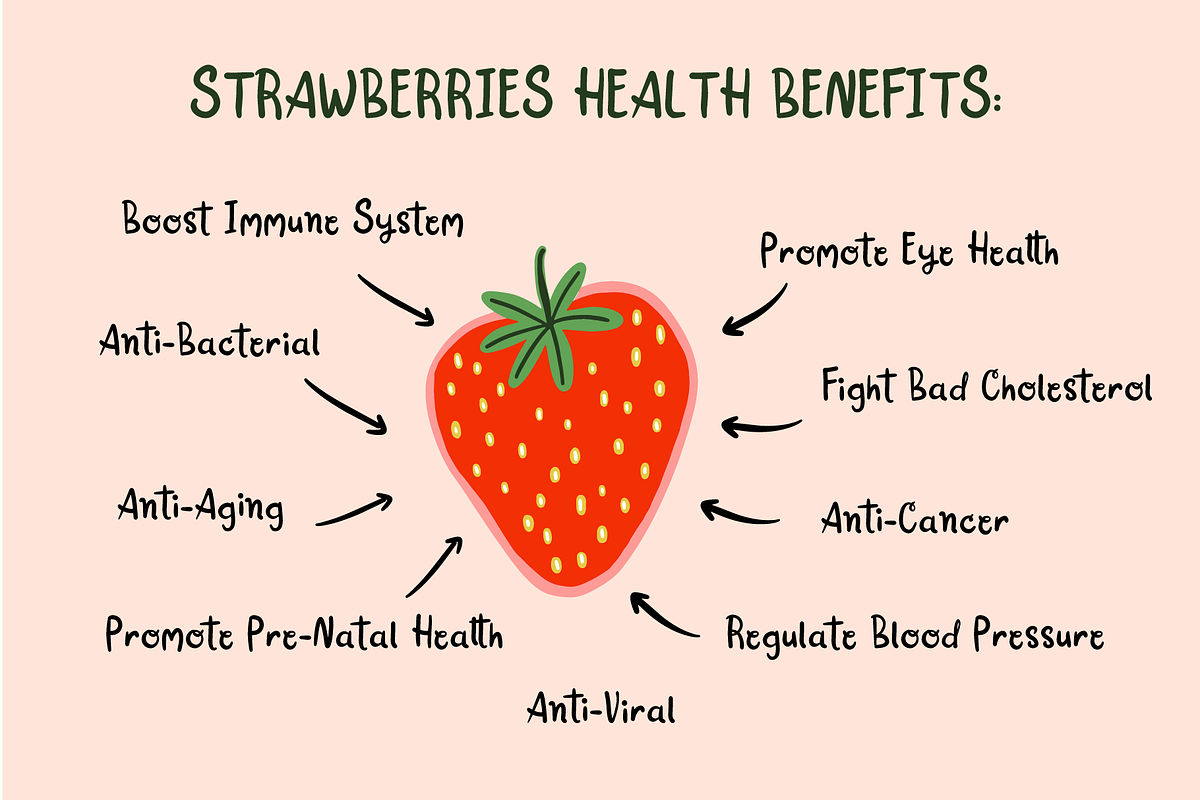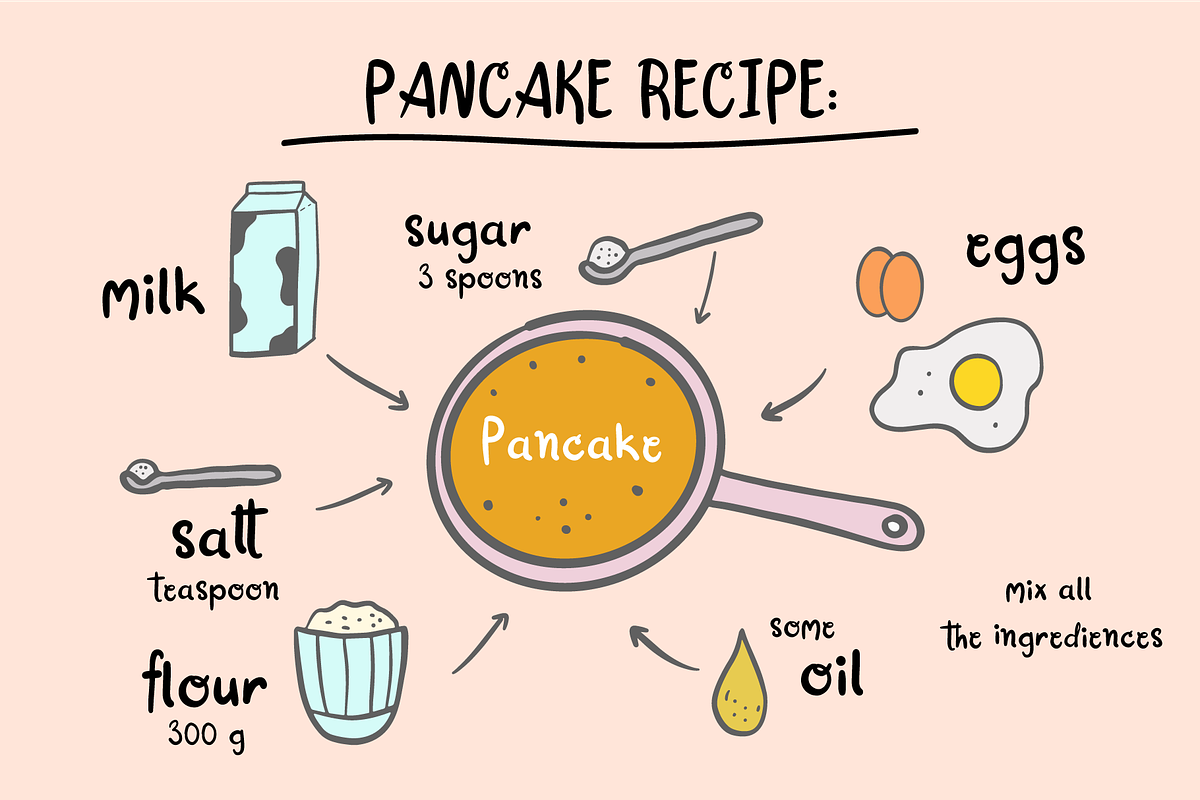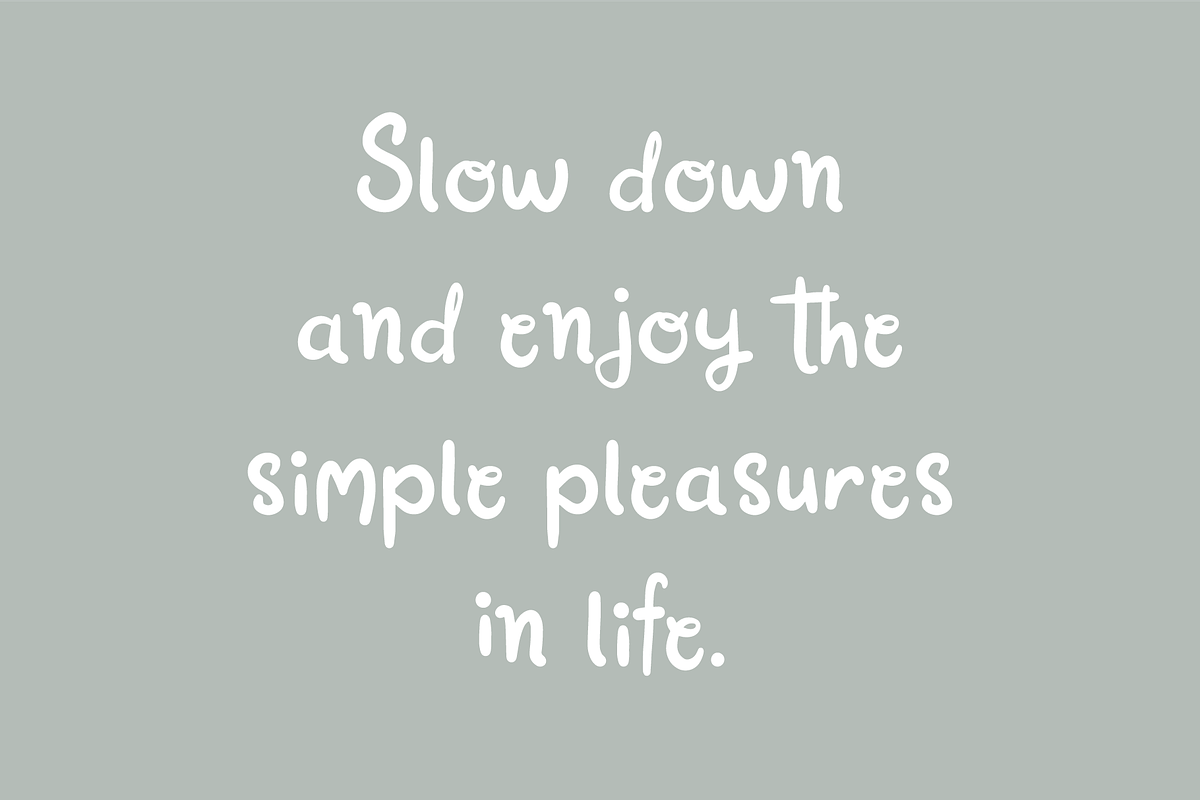
Absolute Art Handwritten Script Font
Hello guys, I am glad to present you my handwritten font Absolute Art Font with interesting artistic style. It can be perfect for your vlog, blogs, journals, trips, travel diaries, videos and many other experiences. Lowercase, uppercase letters, numbers and characters are available. This font is perfect for creating logos, headlines, blogs, websites, stationary and other amazing stuff.
- Lowercase, uppercase letters, numbers and characters are available.
Absolute Art Handwritten Script Font by bigmomentsdesign fits naturally into Branding, posters, packaging, typography.